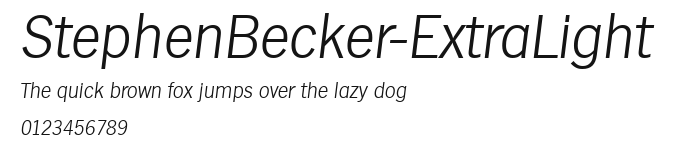
• Font Name: StephenBecker-ExtraLight
• Full Font Name: StephenBecker-ExtraLight Italic
• PostScript Name: StephenBecker-ExtraLight-Italic
About StephenBecker-ExtraLight.ttf
StephenBecker-ExtraLight.ttf is a modern, elegant sans-serif font designed for ultimate readability and visual harmony. Perfect for branding, headlines, web design, and print materials.